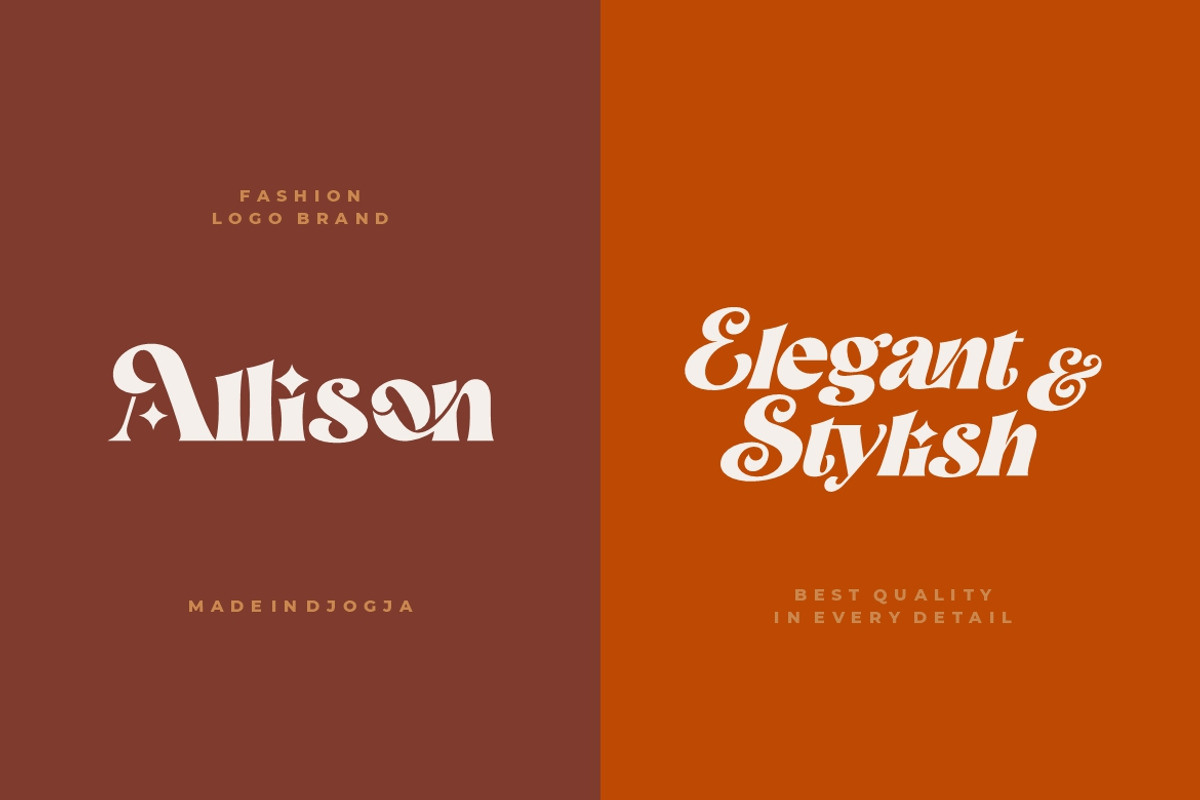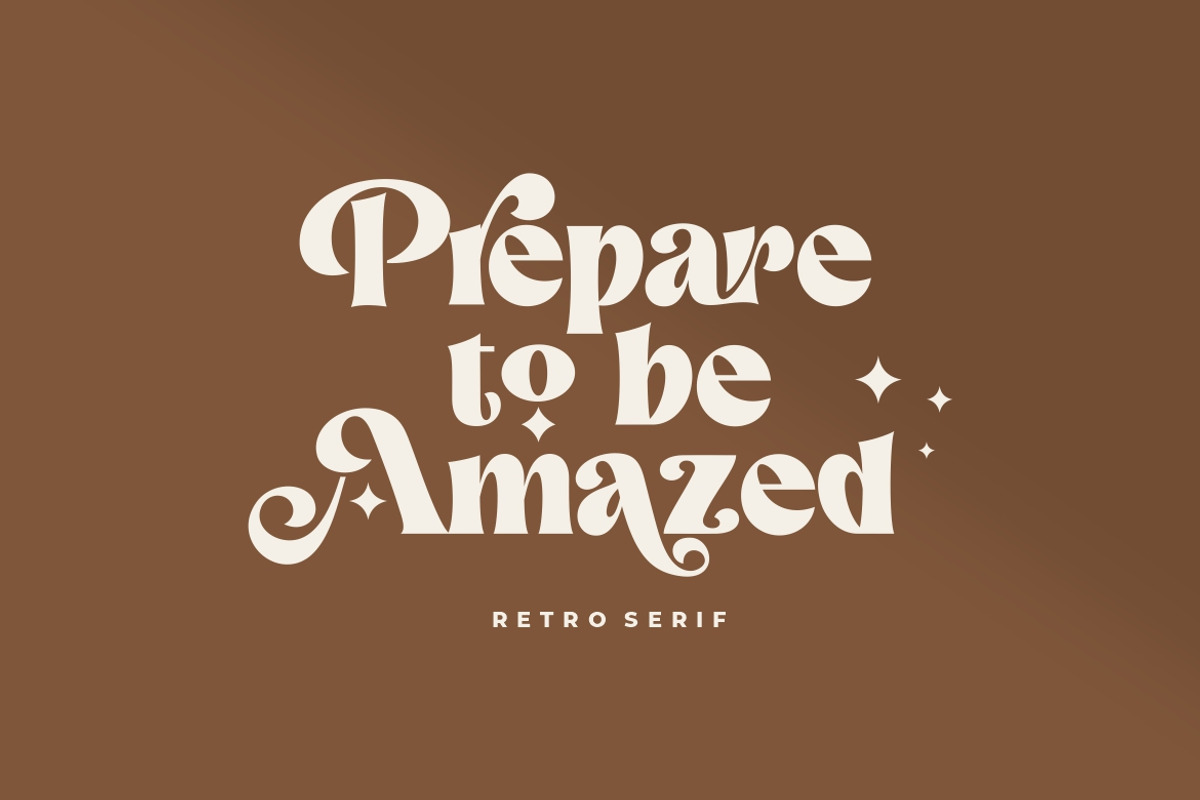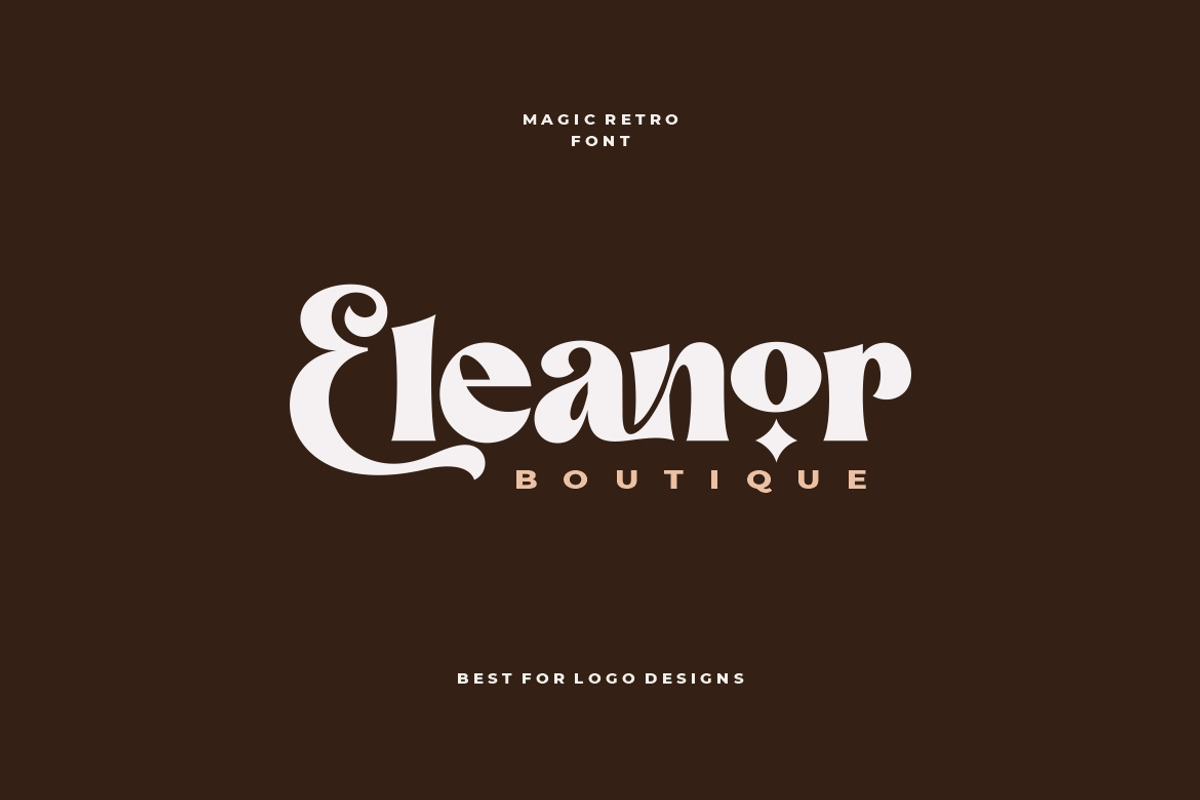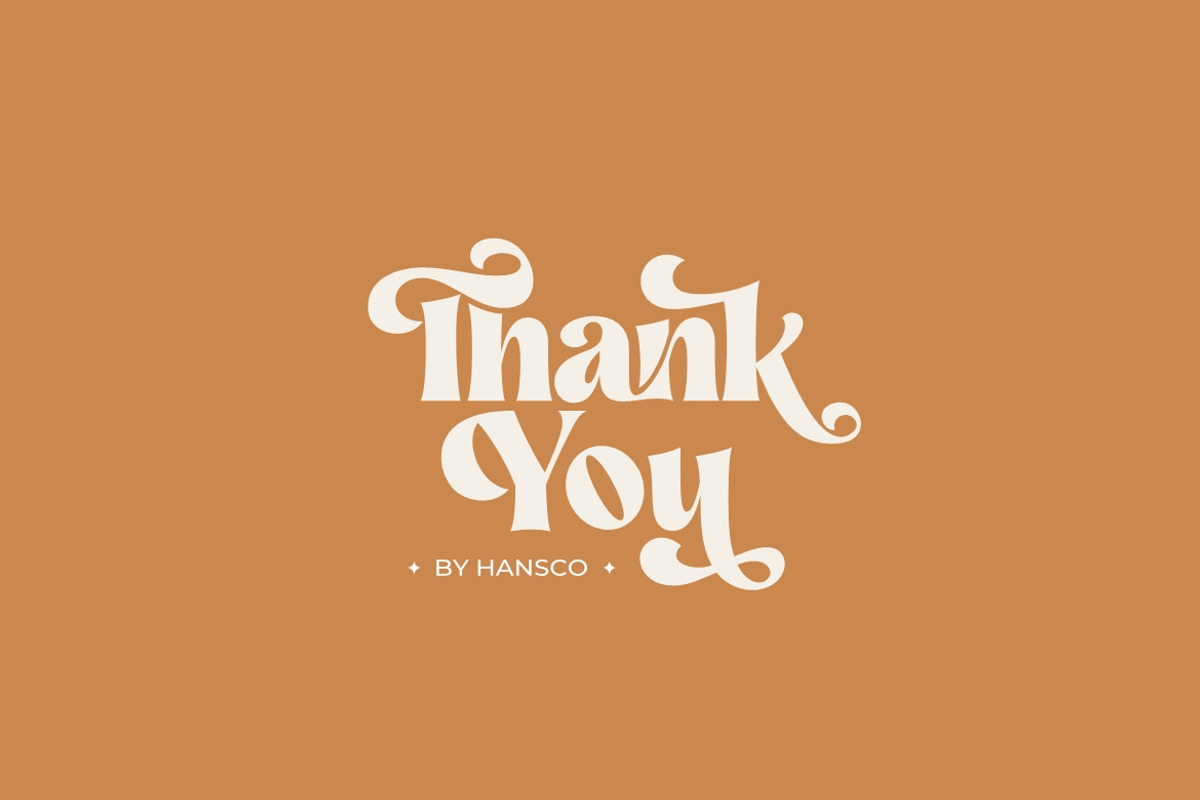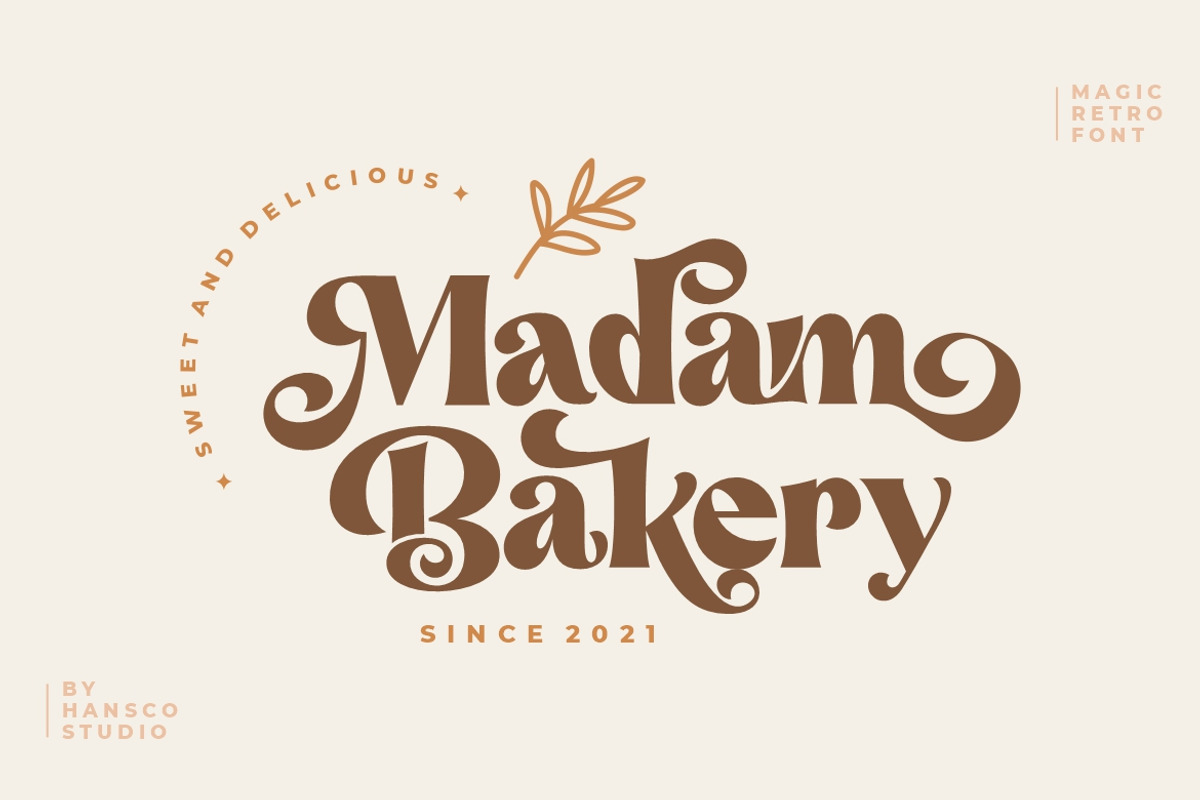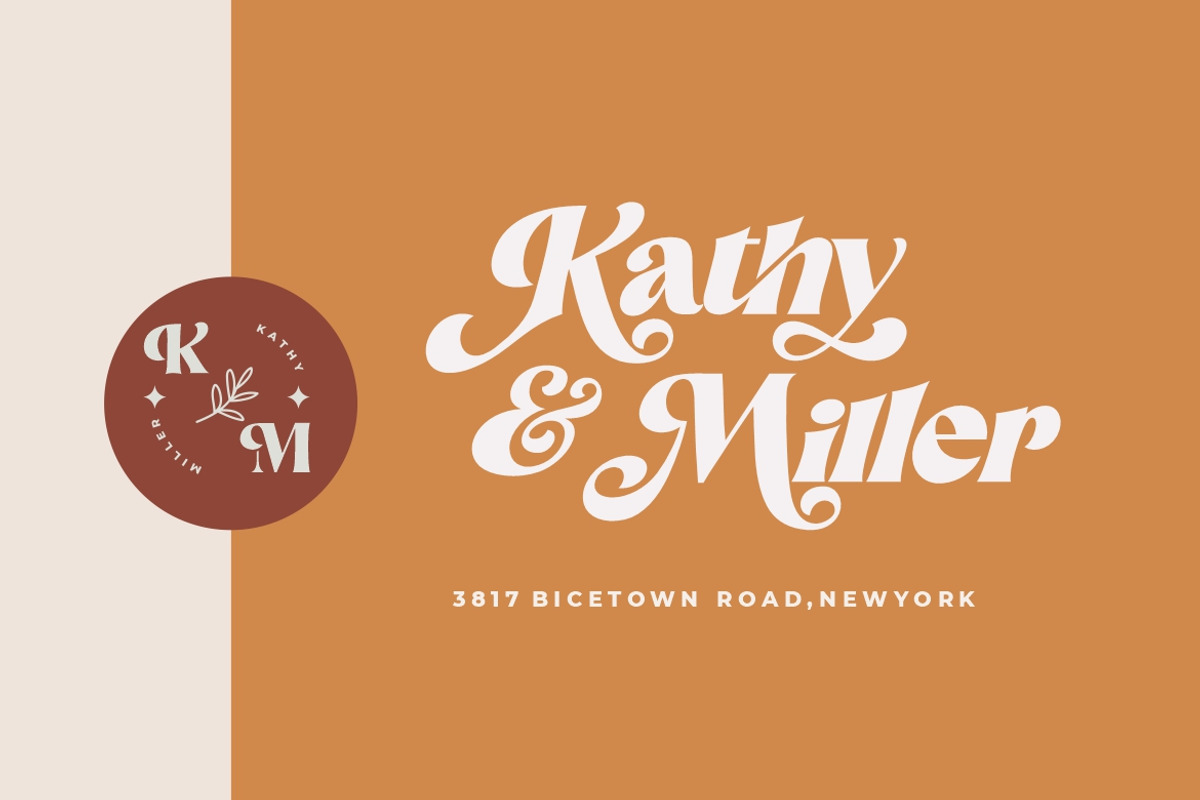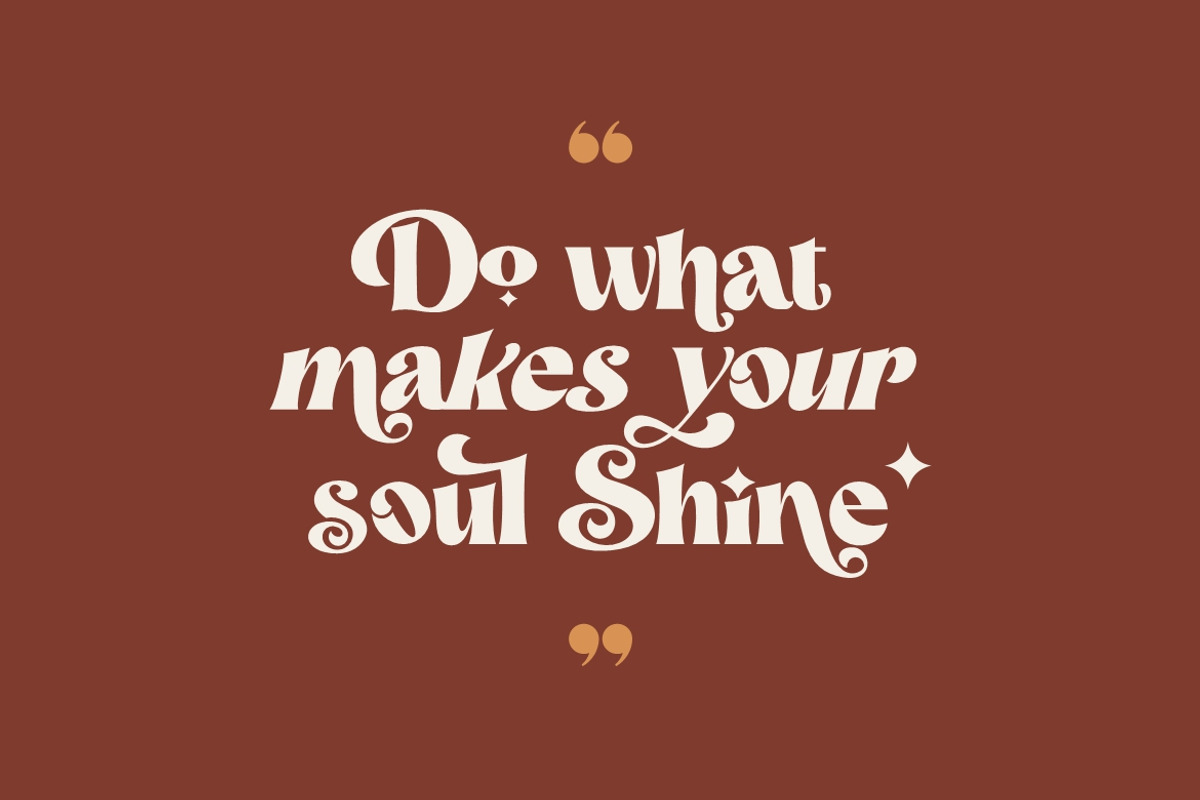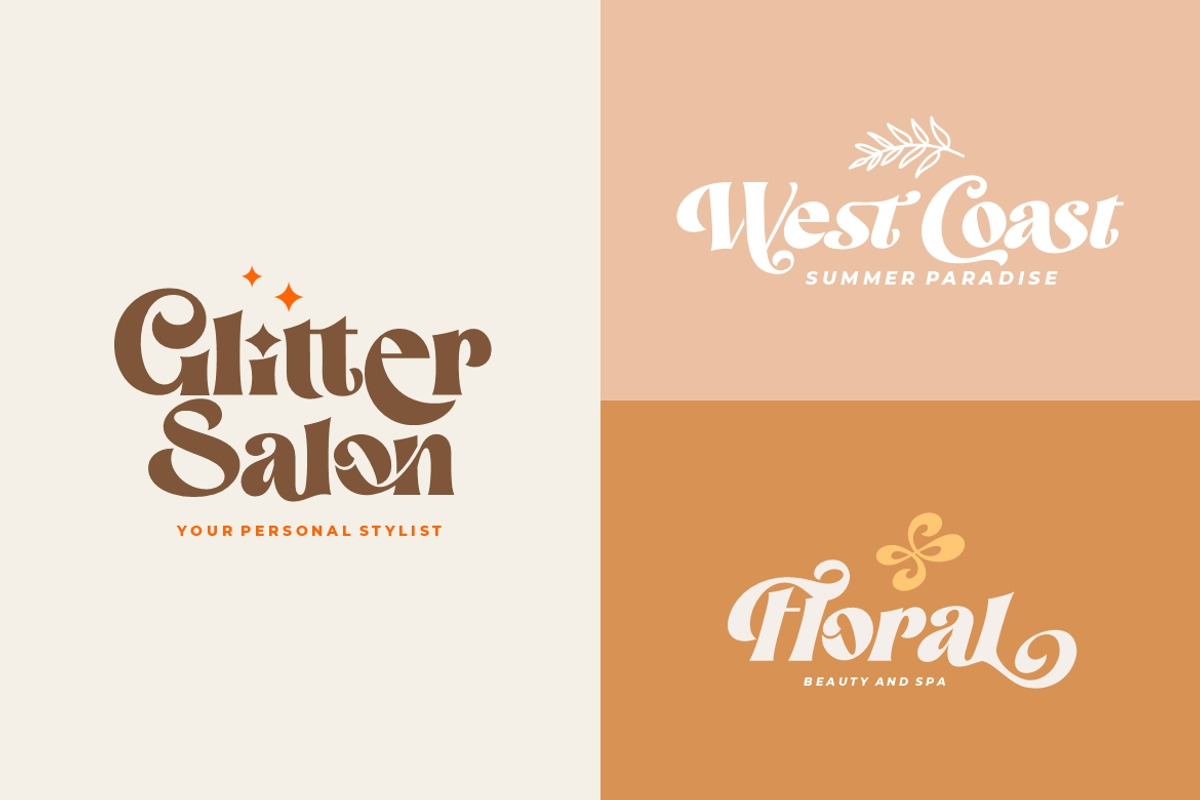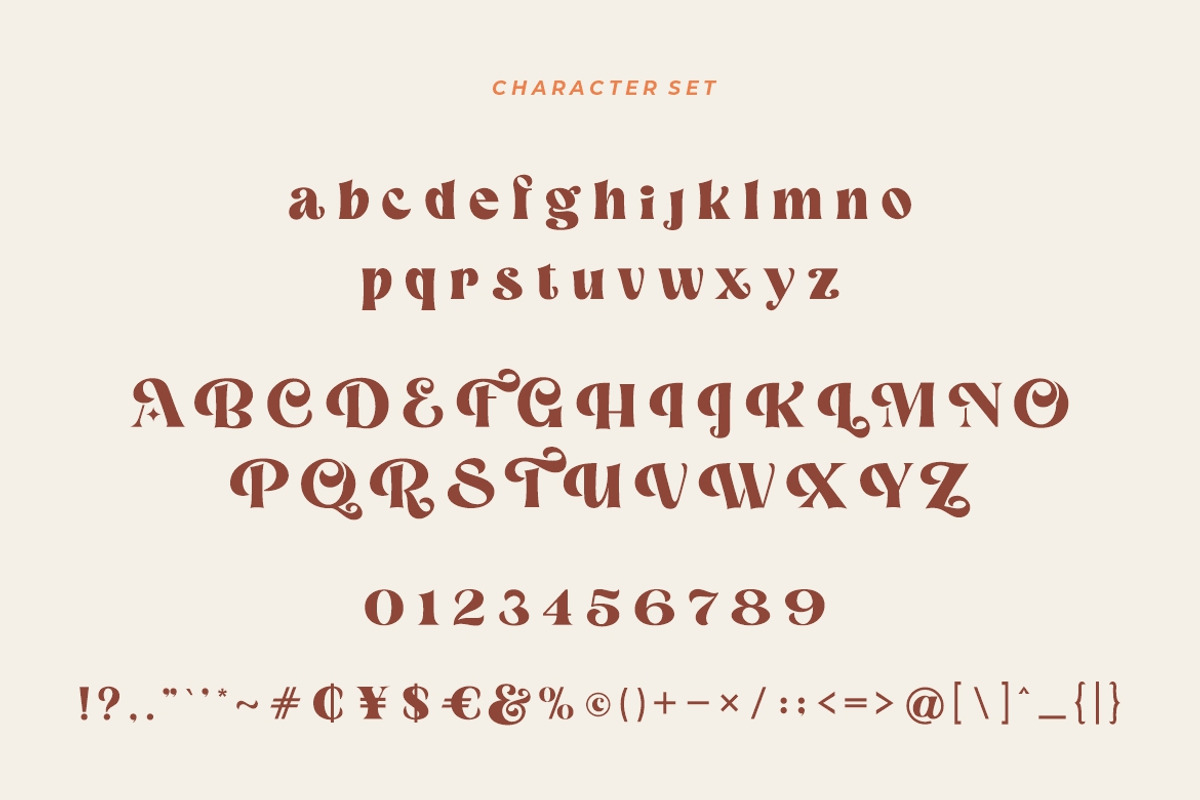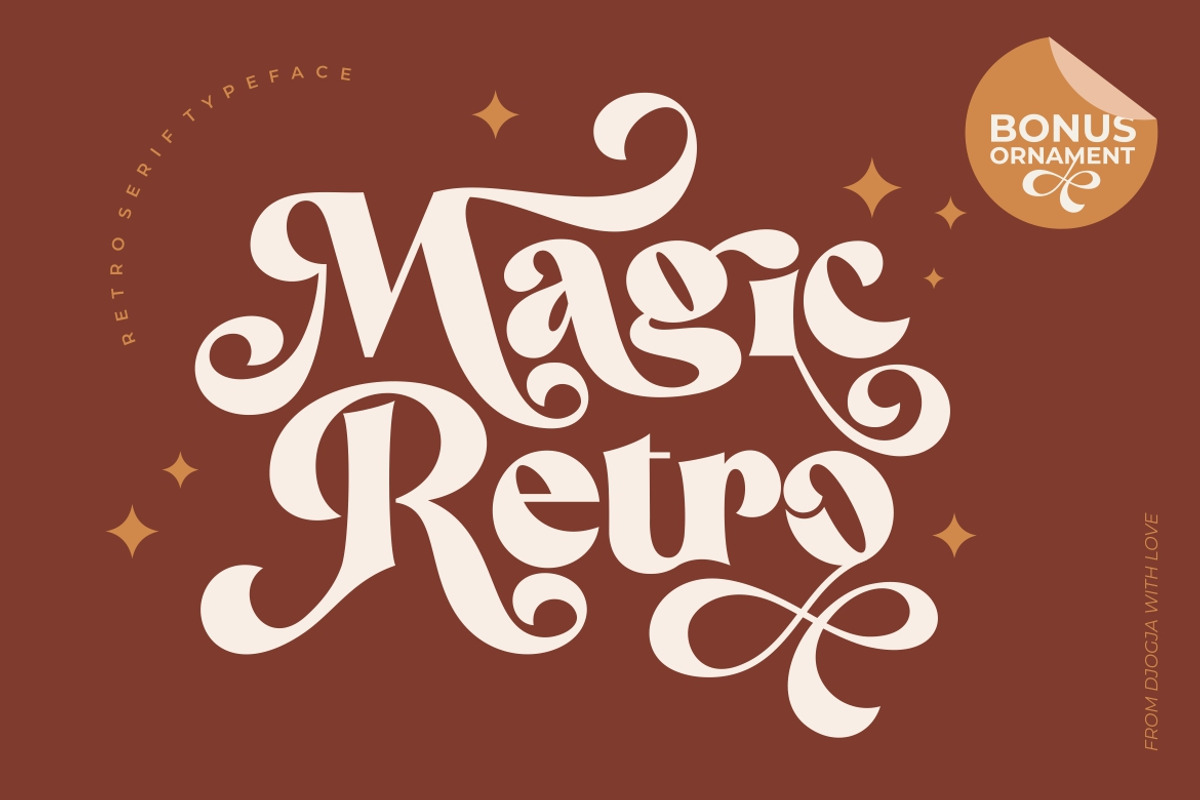
Magic Retro - Retro Serif Font
Magic Retro is a bold casual and playful retro serif typeface with 25+ ligatures and 80+ alternates in lowerscase and uppercase that you can combine to get awesome project with beautiful ornament bonus. This font is PUA encoded which means you can access all of the glyphs and swashes with ease in photoshop, illustrator and through your character map panel.
comes with a full regular, italic / slant, uppercase, lowercase, numbers and punctuation + standard multilingual support. This font is perfect for logos, quotes, posts, blog posts, instagram post - stories, magazine, branding projects, wedding invitations, and much more.. We recommend using Adobe Illustrator or Photoshop.
- alternates
- swashes